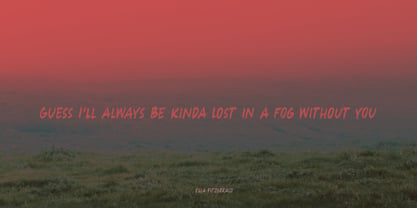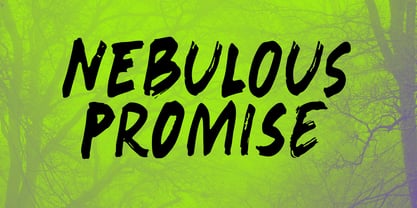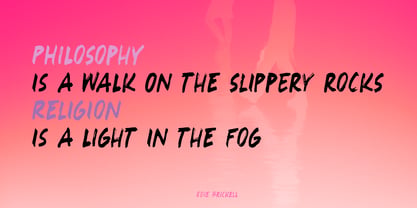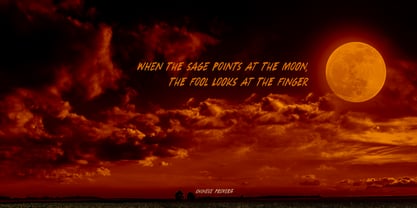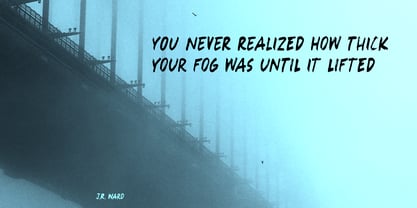
Nebulous Promise Pro
by Hanoded
This font was called differently when I started out building it, but after a long and insightful conversation with a good friend, I decided to call it Nebulous Promise.
Nebulous Promise was made using a broken satay skewer (I like using those!) and Chinese ink. It comes with a full set of alternates for the lower case letters and extensive language support.
Hanoded is run by Dutchman David Kerkhoff. His fonts are a mishmash of styles, as he just creates whatever pops into his head. You will find a lot of brush fonts in his collection, as his favourite tools are brushes and Chinese ink, with cartoon style fonts and script fonts complementing his repertoire. Aside from making fonts, David occasionally guides tours in far-flung places, renovates his '30's house and tries reasoning with his wife and (teenage) kids. Not an easy task!